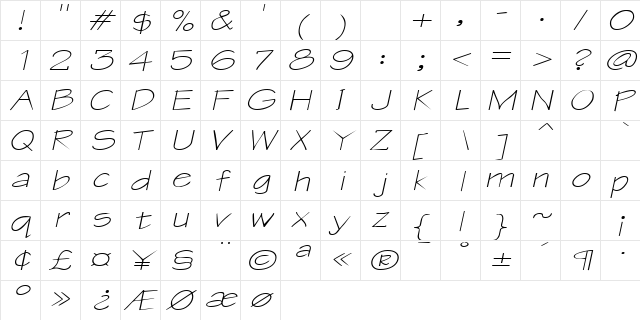
BlueprintExtended Italic
Design Context for BlueprintExtended Typeface
BlueprintExtended offers clean, dependable letterforms without strong stylistic allegiance, making it a practical choice for designers who need flexibility. The slanted form adds forward momentum and visual energy.
Pro Tip: Use BlueprintExtended for emphasis, pull quotes, and subheadings where its slanted energy can add rhythm to the layout.